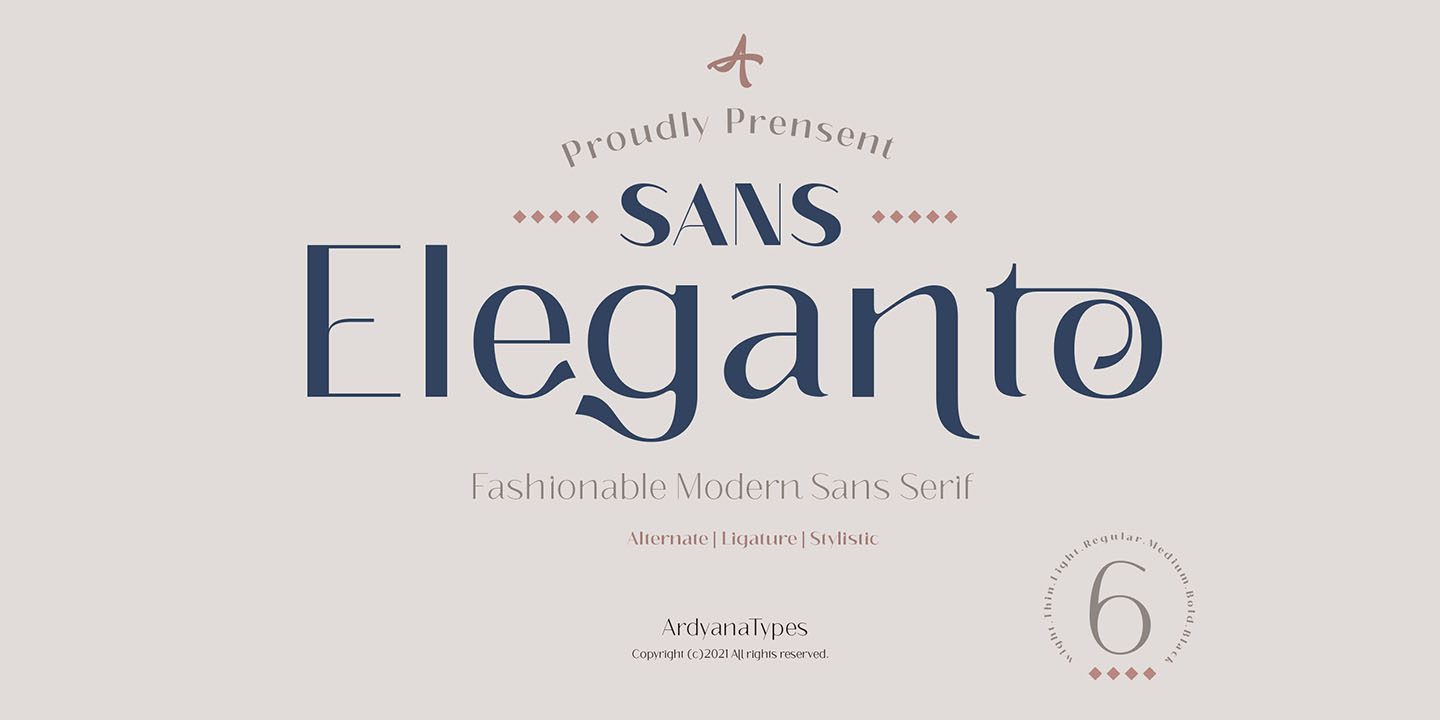
Eleganto Sans Font is perfect for luxury brand communications, high-end fashion campaigns, sophisticated corporate presentations, premium product packaging, elegant architectural signage, refined hospitality materials, upscale marketing communications, and distinguished professional branding.
This refined sans-serif typeface is exciting because it achieves perfect balance between contemporary minimalism and timeless elegance through meticulously crafted letterforms that project sophisticated authority while maintaining exceptional readability and modern appeal.
The Eleganto Sans Font family includes thin, light, regular, medium, bold, and black weights with matching italic styles, providing designers with comprehensive typographic tools for creating sophisticated brand hierarchies and elegant communication systems.
Sophisticated and timeless, Eleganto Sans Font Free Download represents the pinnacle of elegant typography through its seamless fusion of contemporary clarity and classical refinement. This distinguished font transforms brand communications into memorable experiences that resonate with discerning audiences who demand both innovation and sophistication. Its clean geometry ensures optimal performance across all platforms while maintaining the distinctive elegance that separates premium brands from ordinary competitors. Perfect for luxury hotels and high-end consulting firms, this font ensures your message carries the sophisticated credibility and elegant presence that affluent clientele expect from premium service providers. Whether used for executive presentations or luxury brand identity systems, Eleganto Sans Font Free Download delivers the refined sophistication and timeless elegance that connects with audiences who appreciate the perfect balance between modern functionality and classical beauty. Its versatile character adapts seamlessly from intimate communications to grand brand statements, ensuring consistent elegance across all professional applications while maintaining the authority essential for premium brand positioning.